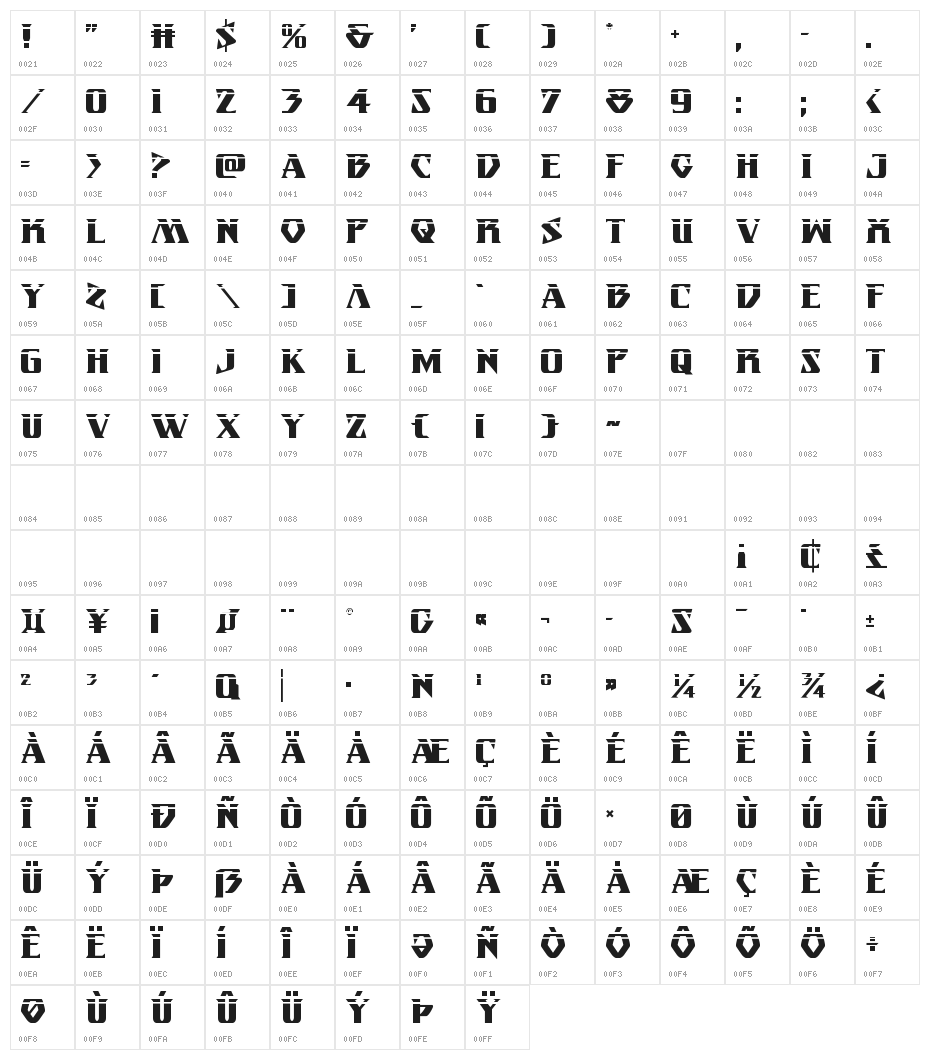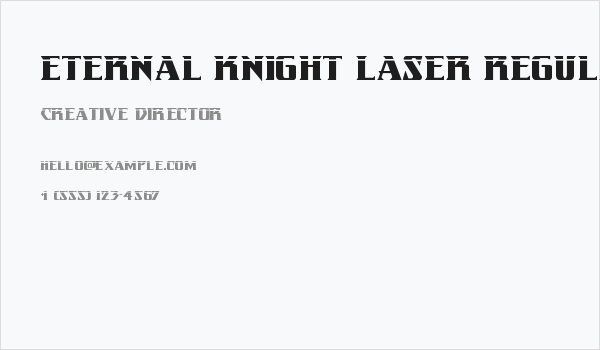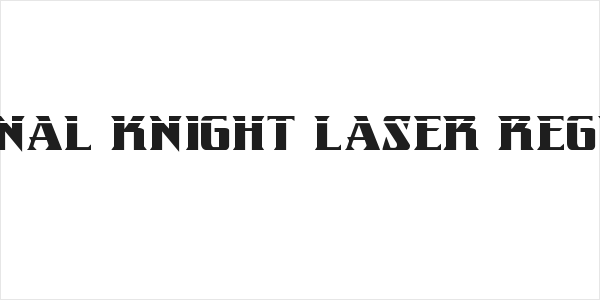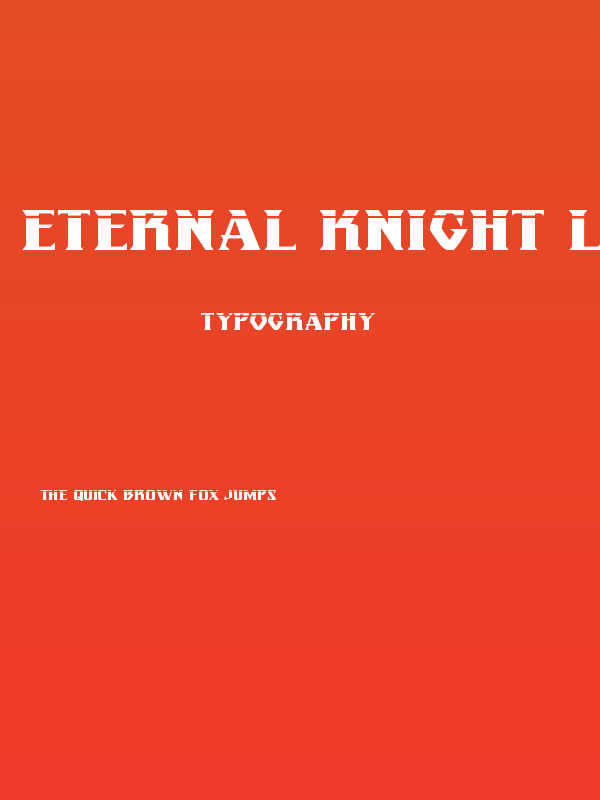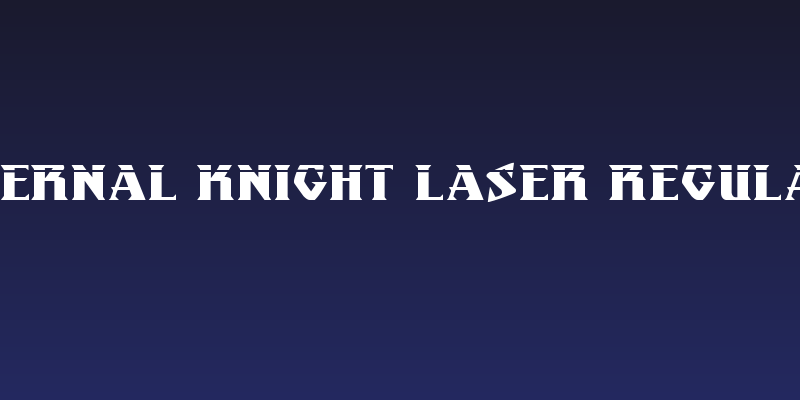
Eternal Knight Laser Regular Font
Eternal Knight Laser Regular Description
This font presents a bold and futuristic style with sharp, angular edges and a distinct geometric form. The characters are designed with a stencil-like appearance, featuring cut-out sections that add a dynamic and edgy feel. The uppercase letters are particularly striking, with a consistent height and width that create a uniform look. The numbers and special characters maintain the same boldness and angularity, ensuring a cohesive design throughout. This font is ideal for projects that require a modern and impactful aesthetic, such as sci-fi themed designs or tech-related branding.
| Proposed Projects | Ideal for sci-fi themed designs, tech branding, video game titles, and futuristic posters. |